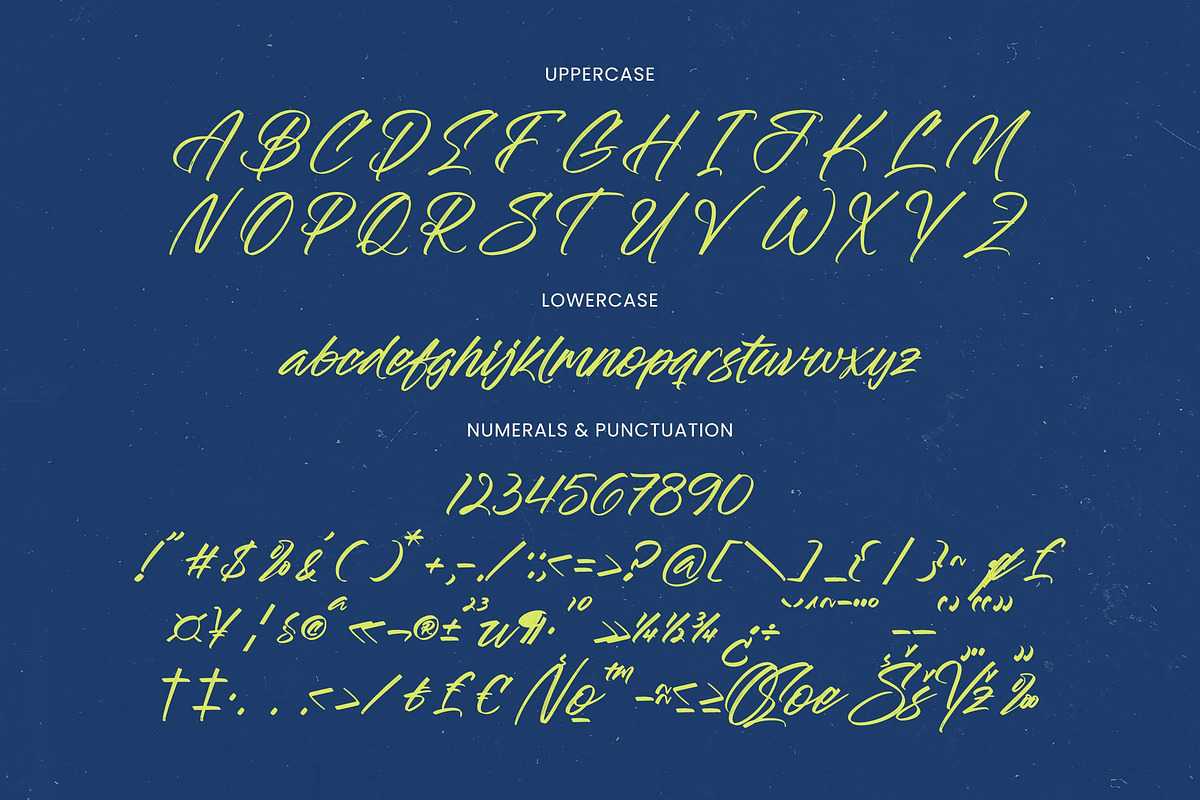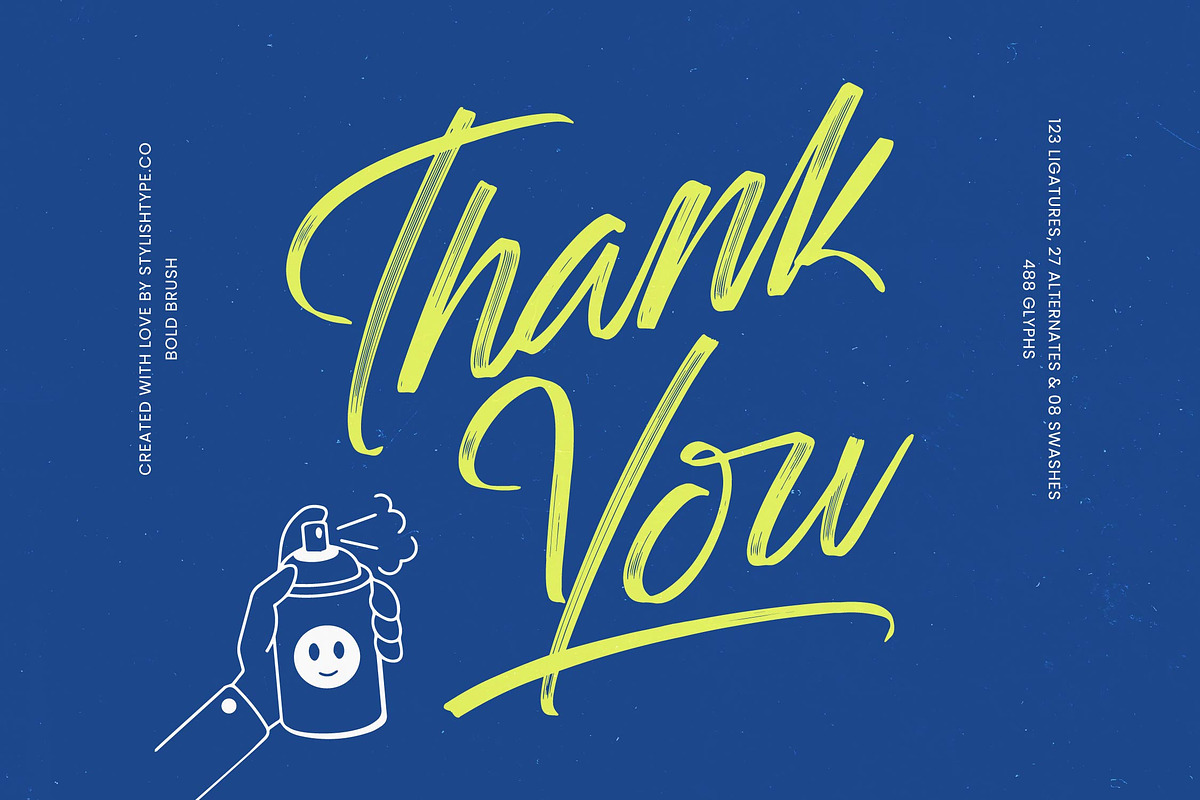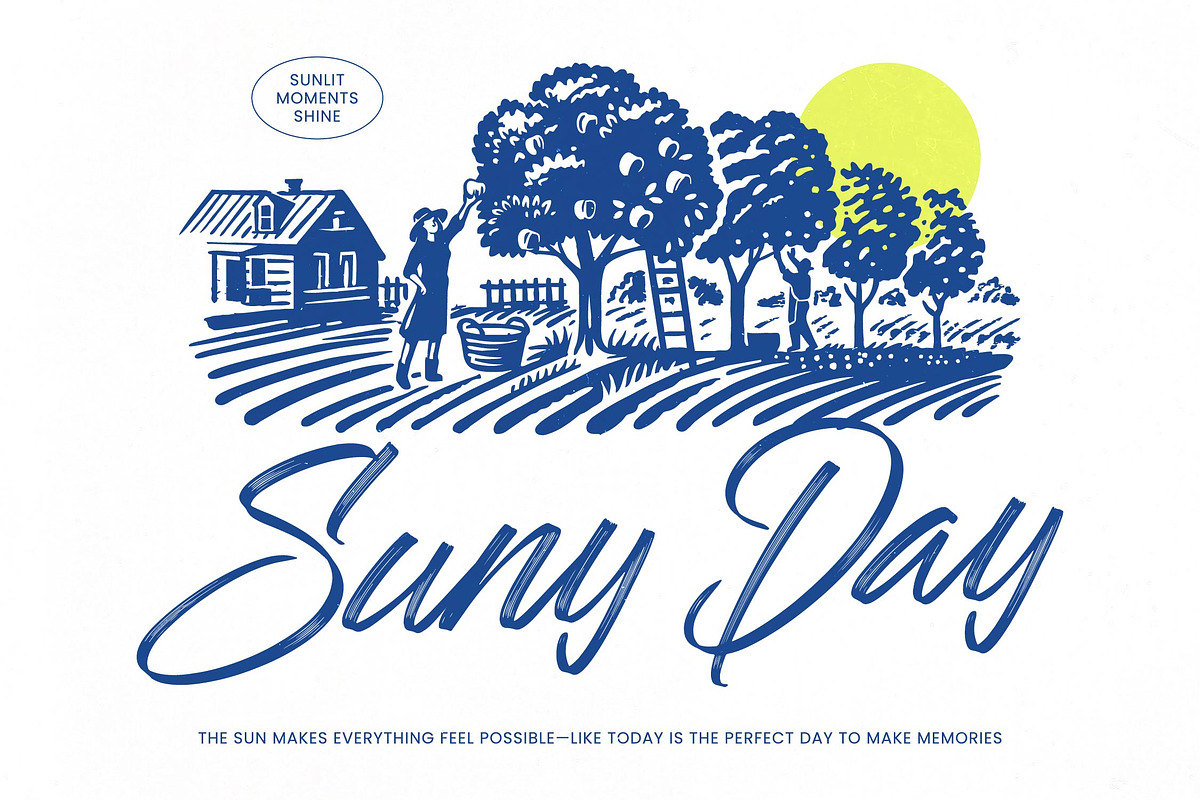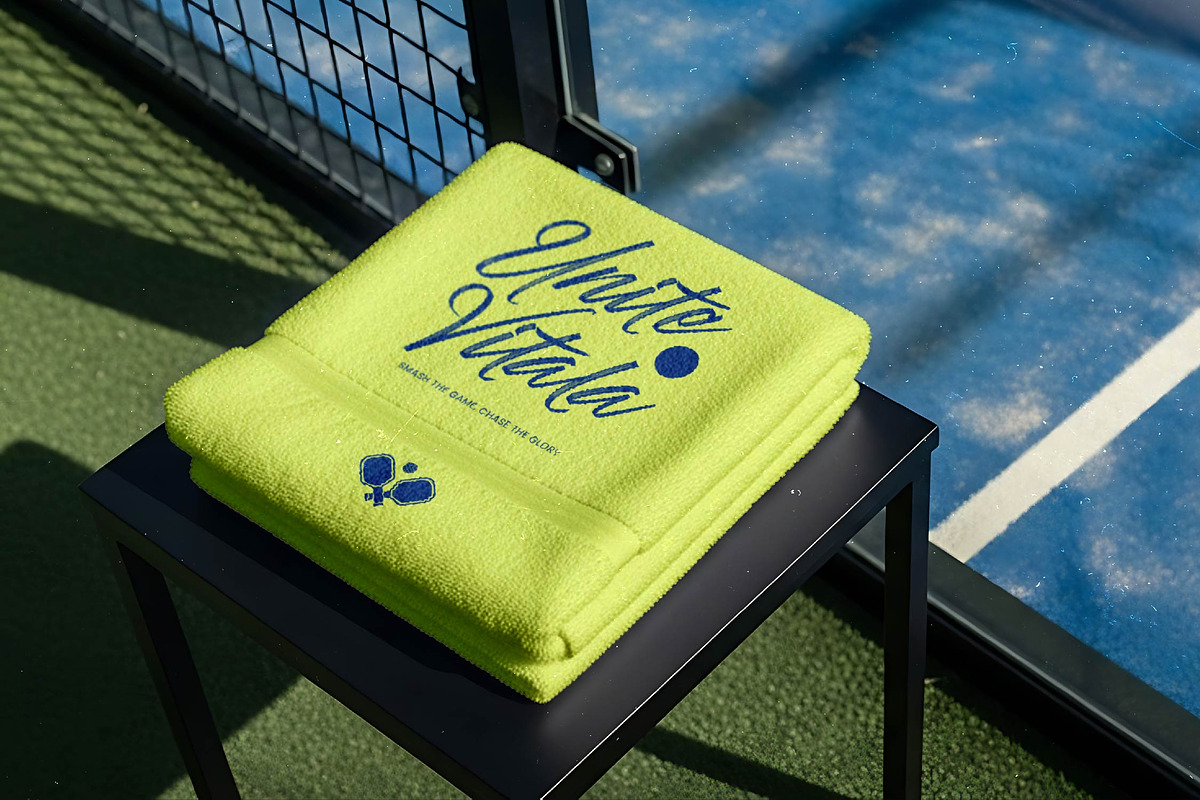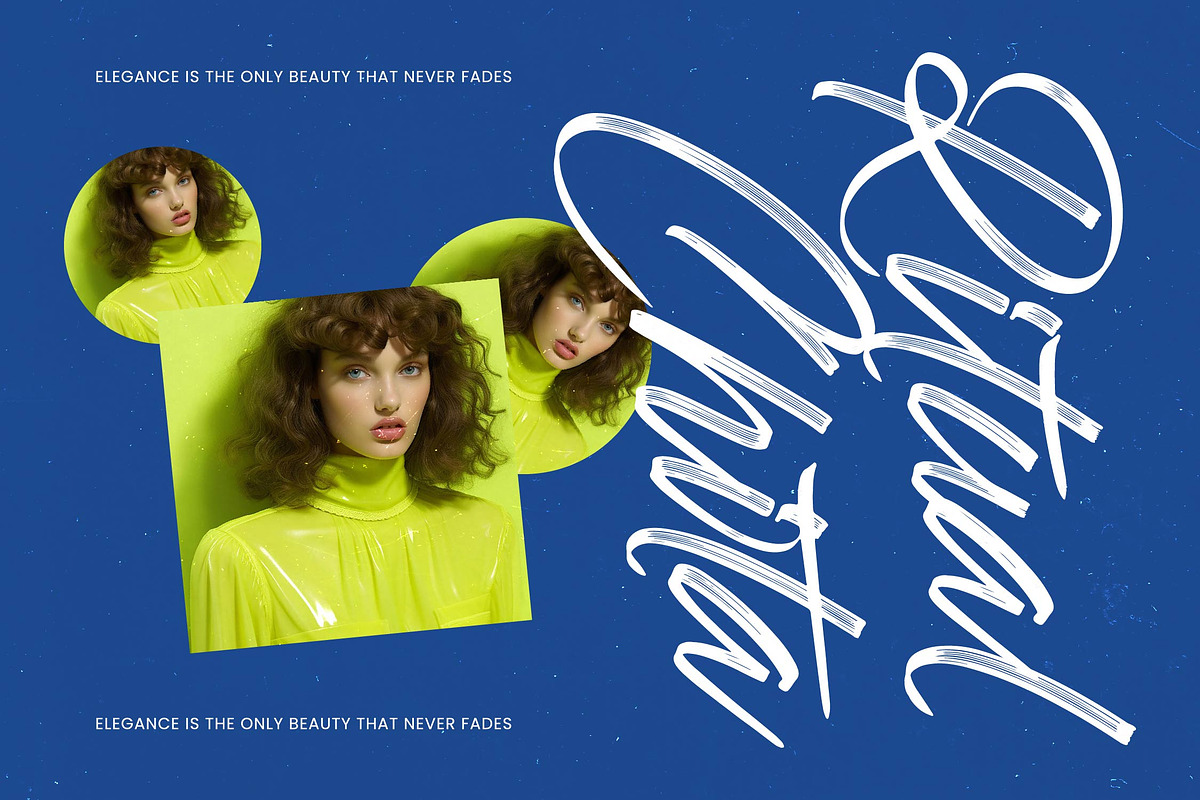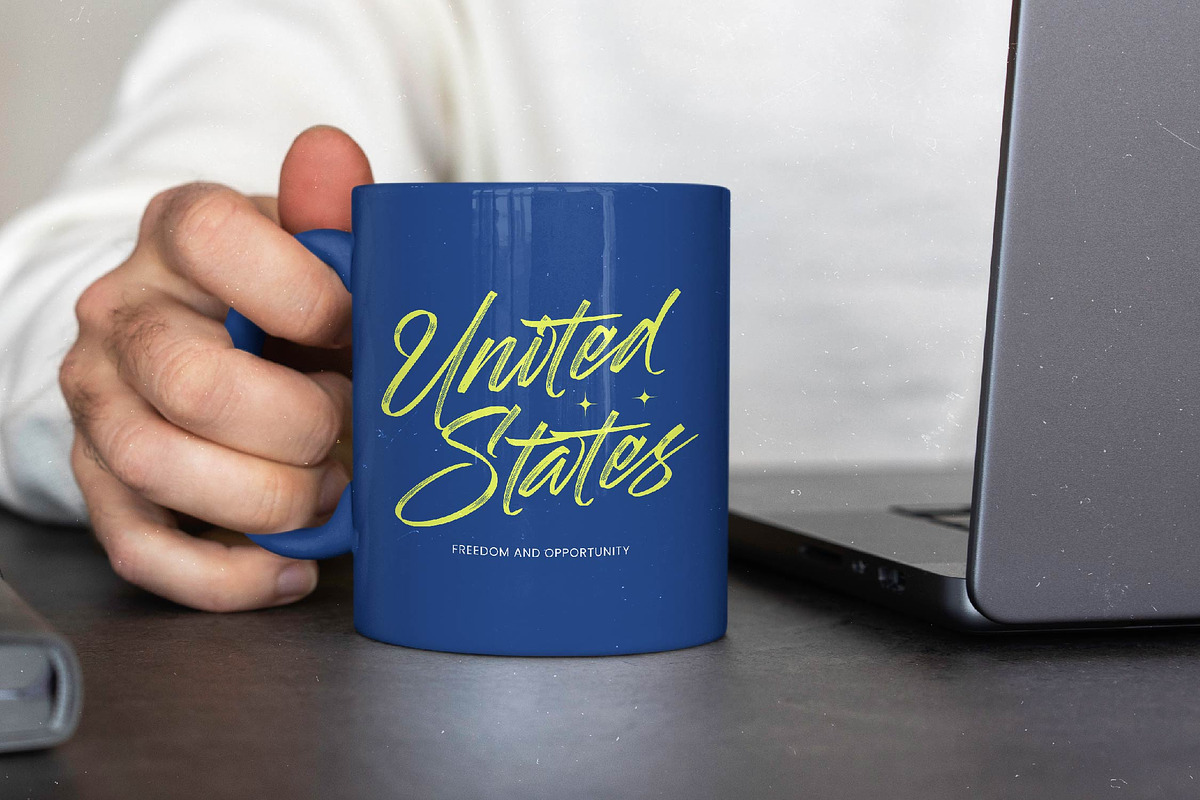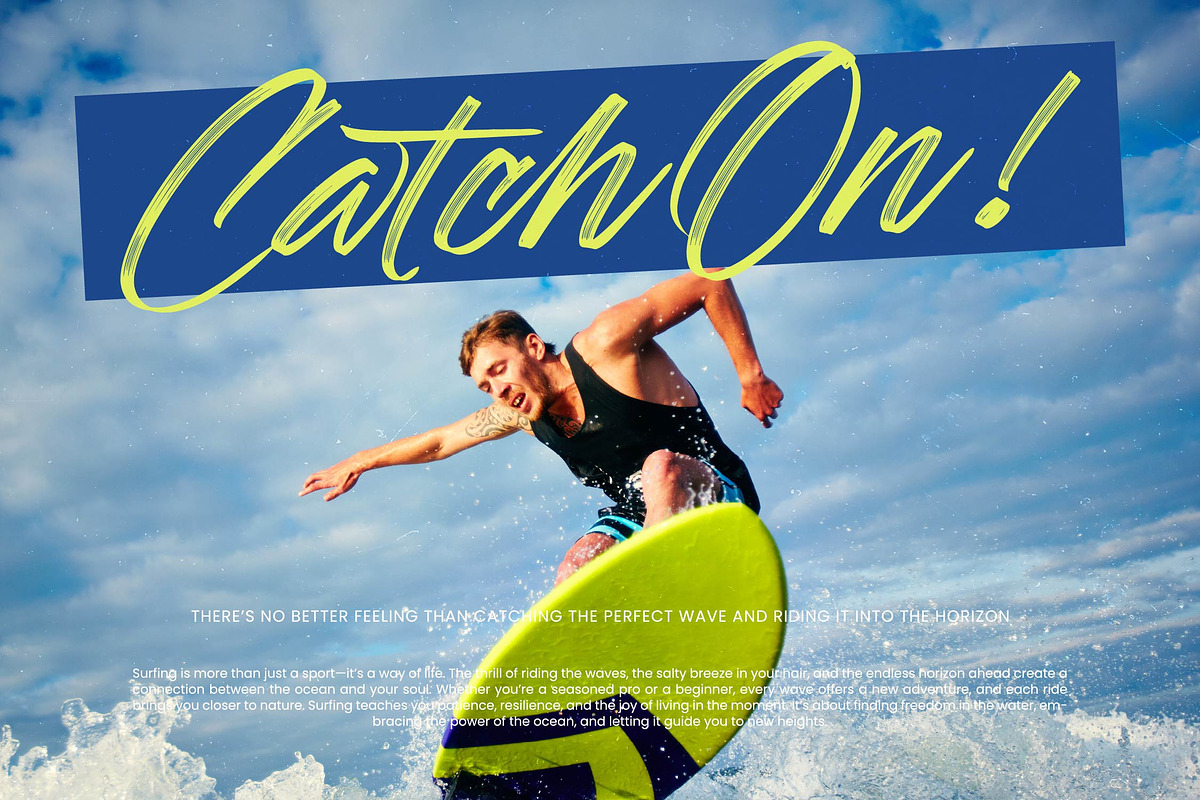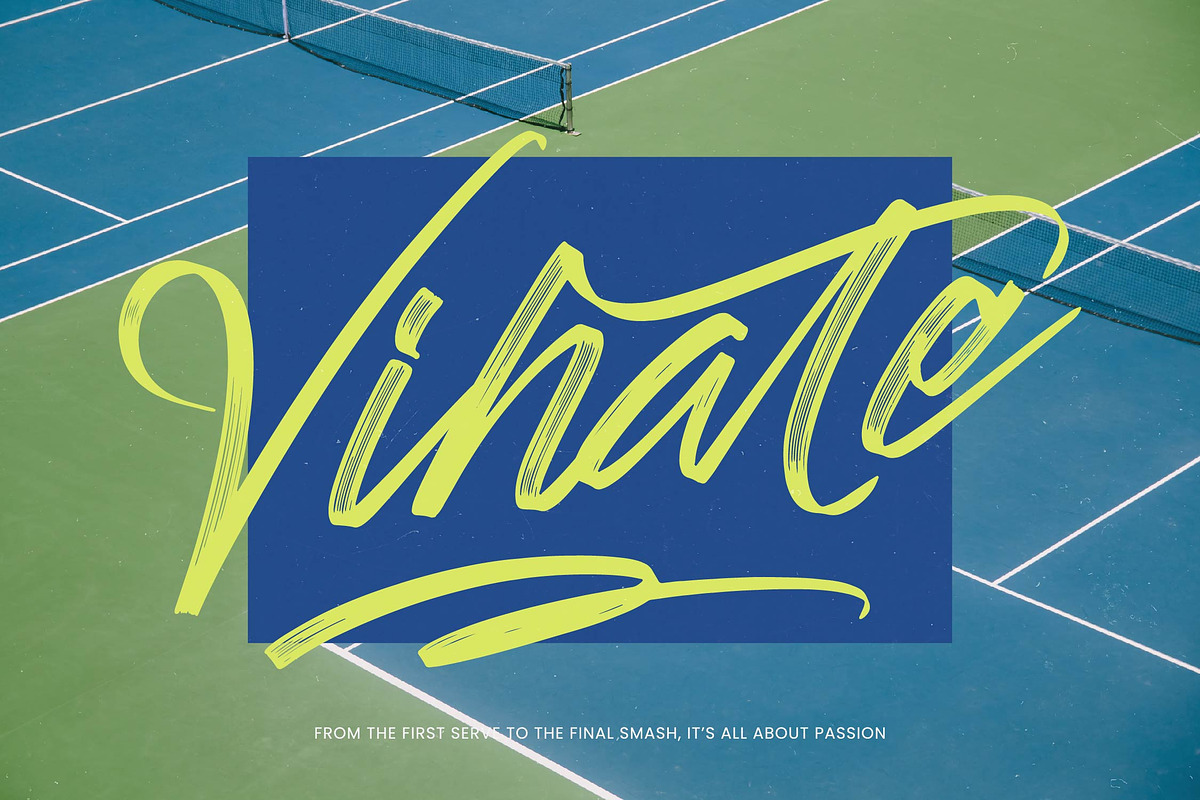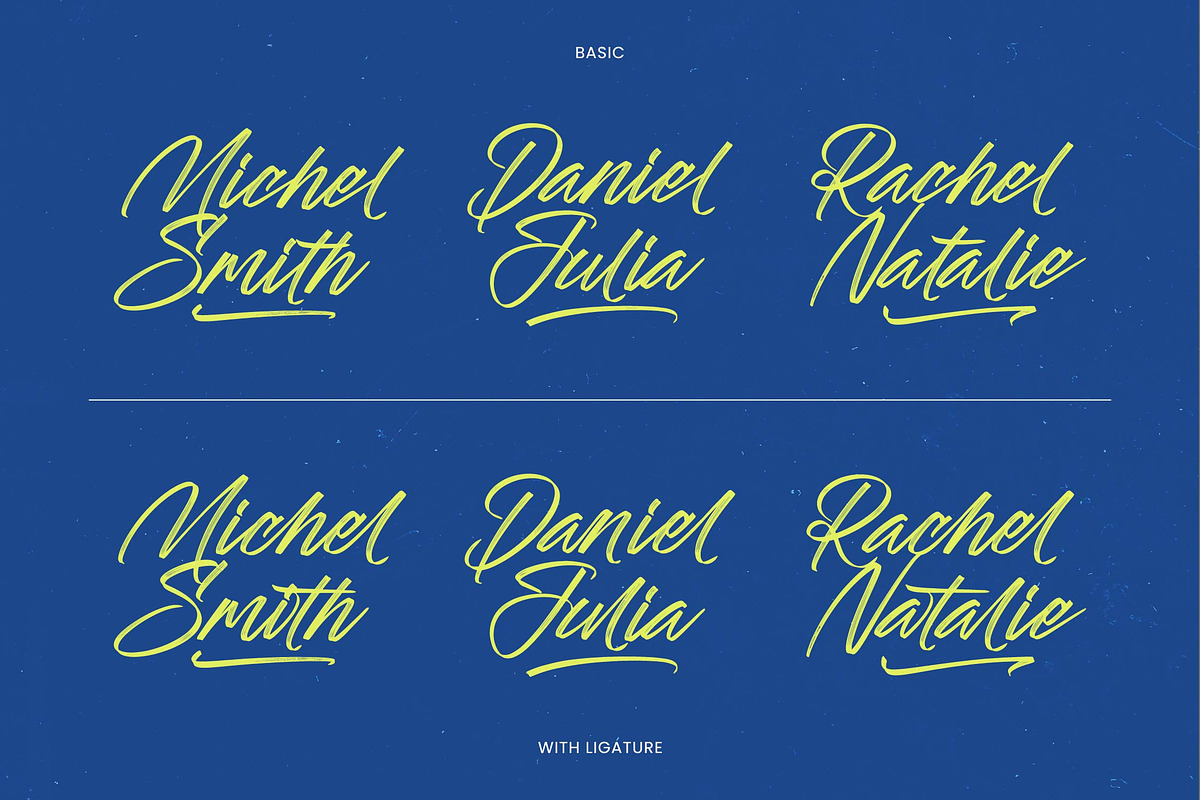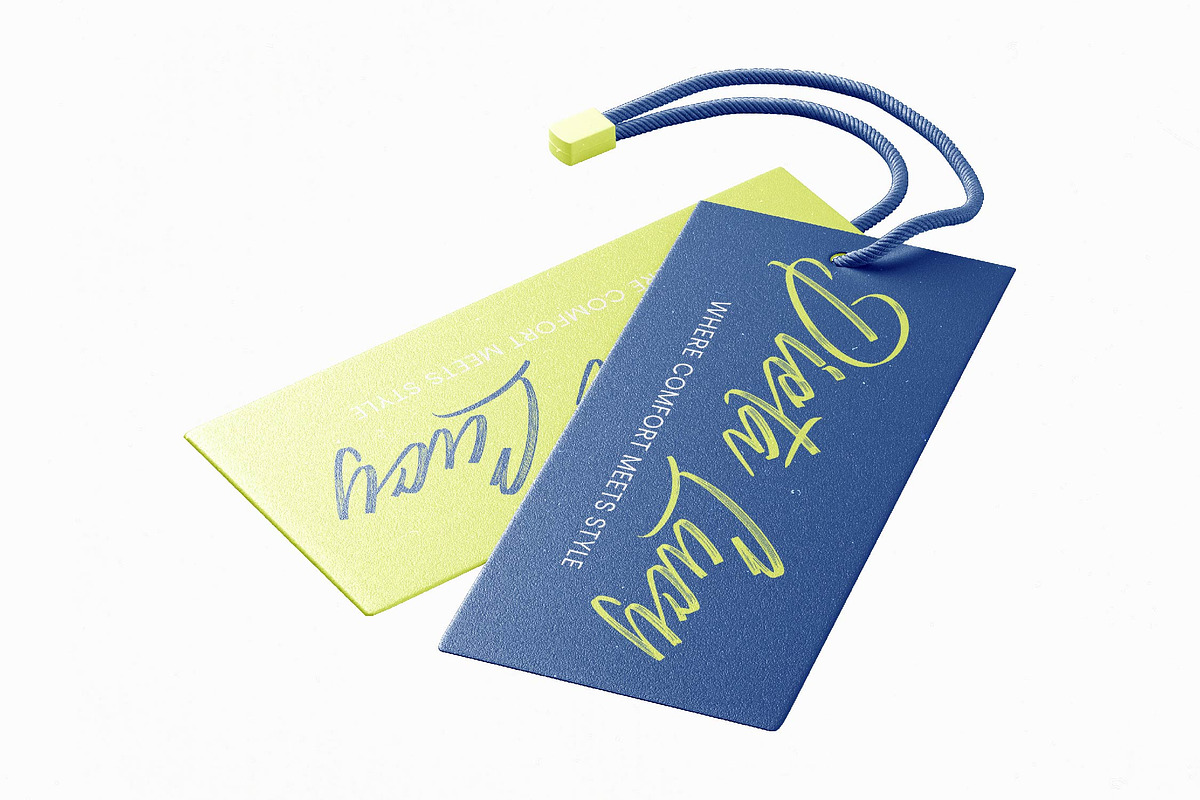
Ghaya Dalton Bold Brush Font
Ghaya Dalton - Bold Brush Font , Ghaya Dalton is a bold urban brush script built with raw strokes, energetic texture, and a confident street-art attitude that feels loud, expressive, and unmistakably modern. Designed to look like fast spray-paint lettering, it brings natural pressure variations, rough bristle details, and sweeping curves that add authentic graffiti dynamics to any design. With extensive ligatures, alternates, and swashes, this font gives creatives the flexibility to craft bold titles, edgy branding, merch, posters, sports graphics, music covers, and social media visuals that demand attention. Ghaya Dalton is the go-to brush script when you want movement, personality, and a fearless street-inspired visual punch.